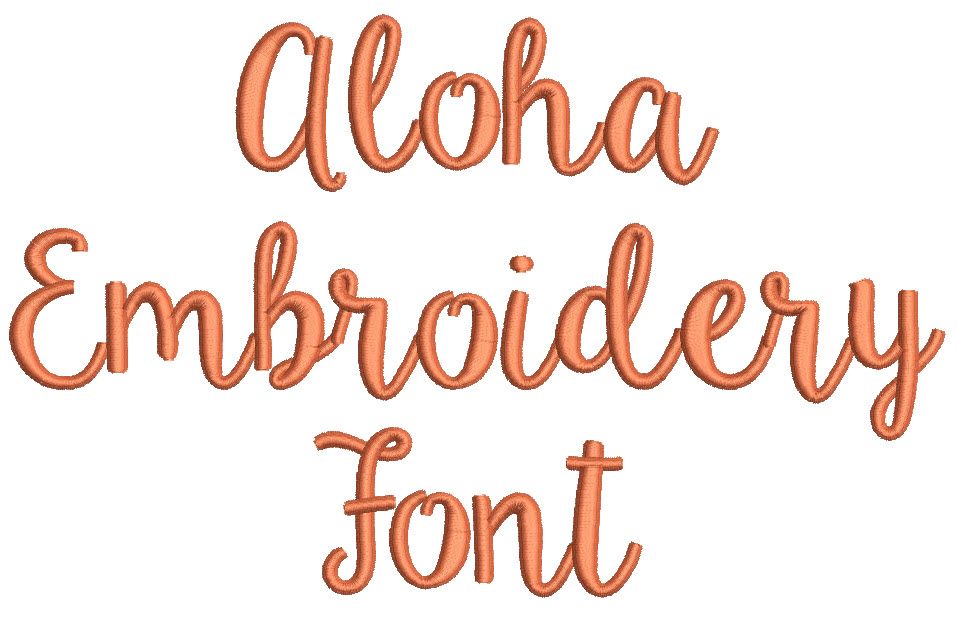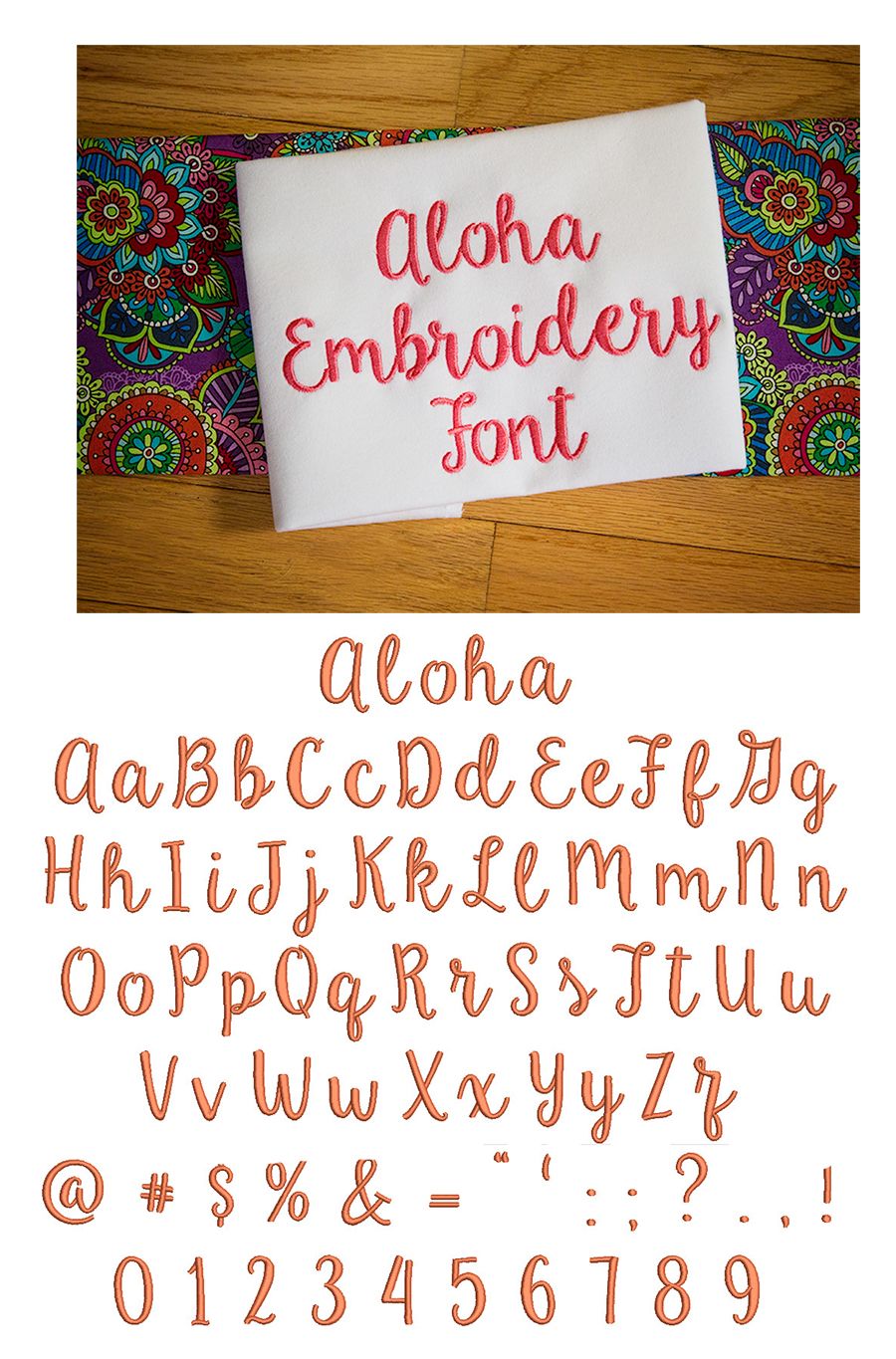
Aloha Satin Stitch Embroidery Font
A fun and beautiful script font to add to your collection of favorites! All of our font alphabets are 100% manually digitized to bring you maximum stitch quality.